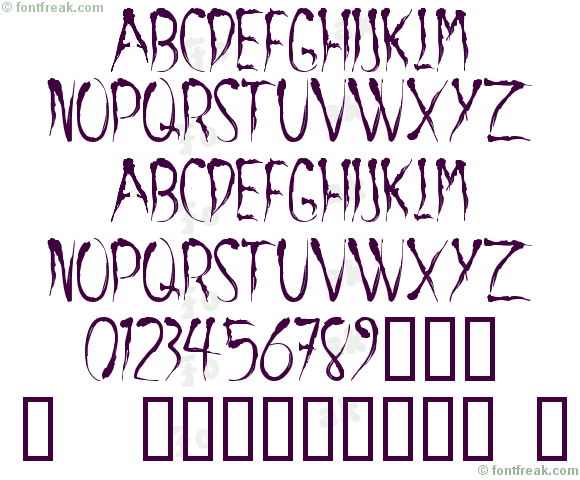
aracnoide
About aracnoide
The aracnoide font by Grafito Design is a captivating display typeface that falls into the decorative category. Its unique design presents an intriguing blend of organic and abstract forms, making it an eye-catching choice for various creative projects. The font features irregular stroke weights that create a sense of movement and fluidity, while the contrast between thick and thin lines adds a dynamic quality. The spacing is intentionally varied, contributing to the font's overall organic feel, with elongated, sharp edges that evoke a sense of whimsy and creativity.
This font is particularly well-suited for a range of applications. Graphic designers may find it ideal for creating striking movie posters that demand attention. Additionally, aracnoide can enhance the aesthetic of fantasy book covers, bringing an otherworldly charm to the design. It also works effectively for restaurant menus, particularly for establishments with an avant-garde or eclectic theme, allowing the menu items to stand out. Small business owners might use this font for promotional materials or product packaging, especially if they want to convey a playful or unconventional brand image. Content creators can leverage aracnoide for social media graphics, where distinctive typography can significantly enhance engagement.
The target audience for aracnoide includes graphic designers, small business owners, and content creators who seek to make a bold statement with their visual communications. The unique characteristics of this font make it a standout choice for those looking to infuse creativity into their projects.